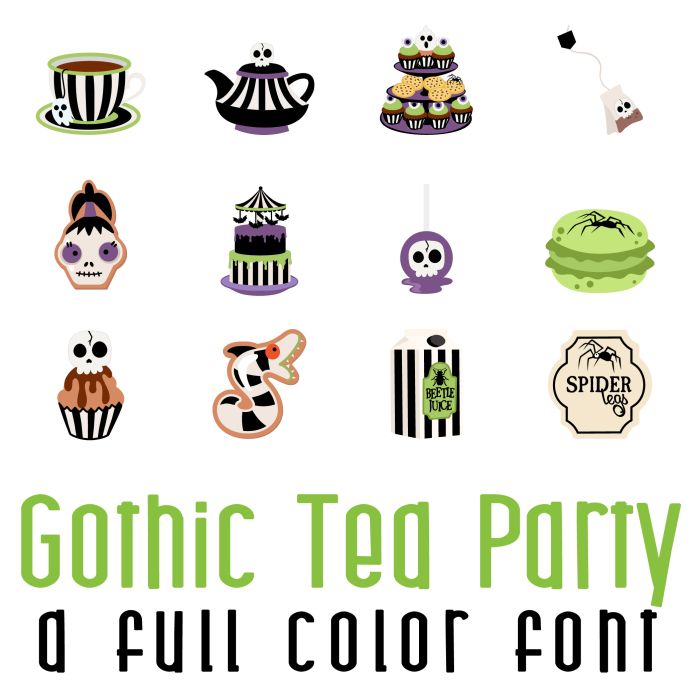
This fun full color font features 26 gothic and spooky tea party elements perfect for Halloween, cards, crafts, gifts, planner stickers, scrap book pages, decor and more!